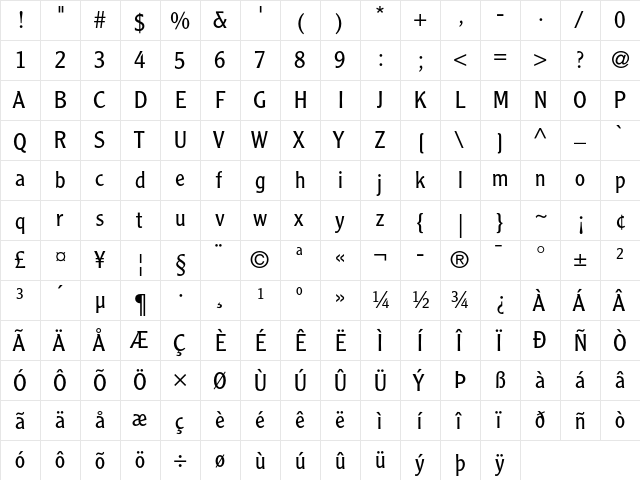
Clearface Gothic LH 45 Light
Design Context for Clearface Gothic LH Typeface
Clearface Gothic LH takes a clean, functional approach — its unadorned letterforms prioritise legibility and work reliably across screen and print environments. The delicate stroke weight brings airiness and refinement to layouts.
A natural fit for high-end product packaging, luxury brand identities, and refined web typography.
Font Pairing: Pair Clearface Gothic LH with a medium or bold serif for headlines — the weight contrast creates an elegant, high-end feel.
Pro Tip: Use Clearface Gothic LH with generous tracking and line-height for the most luxurious effect — light sans-serifs reward spacious, considered layouts.